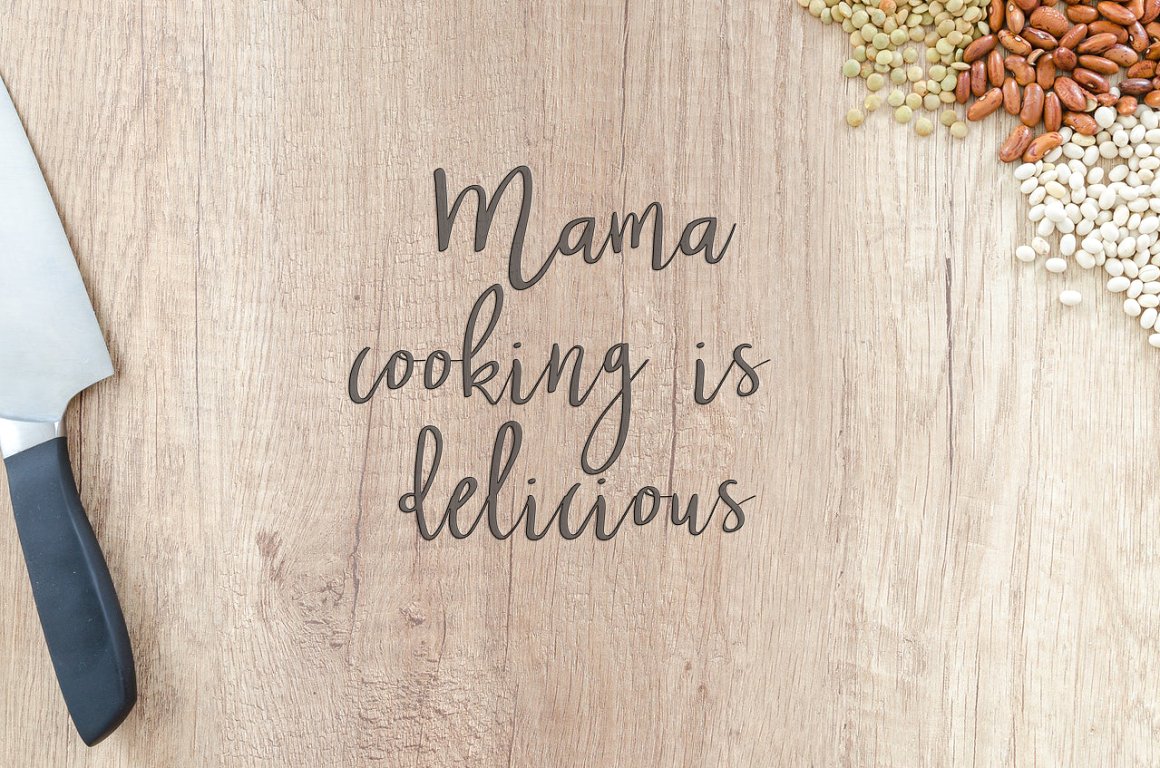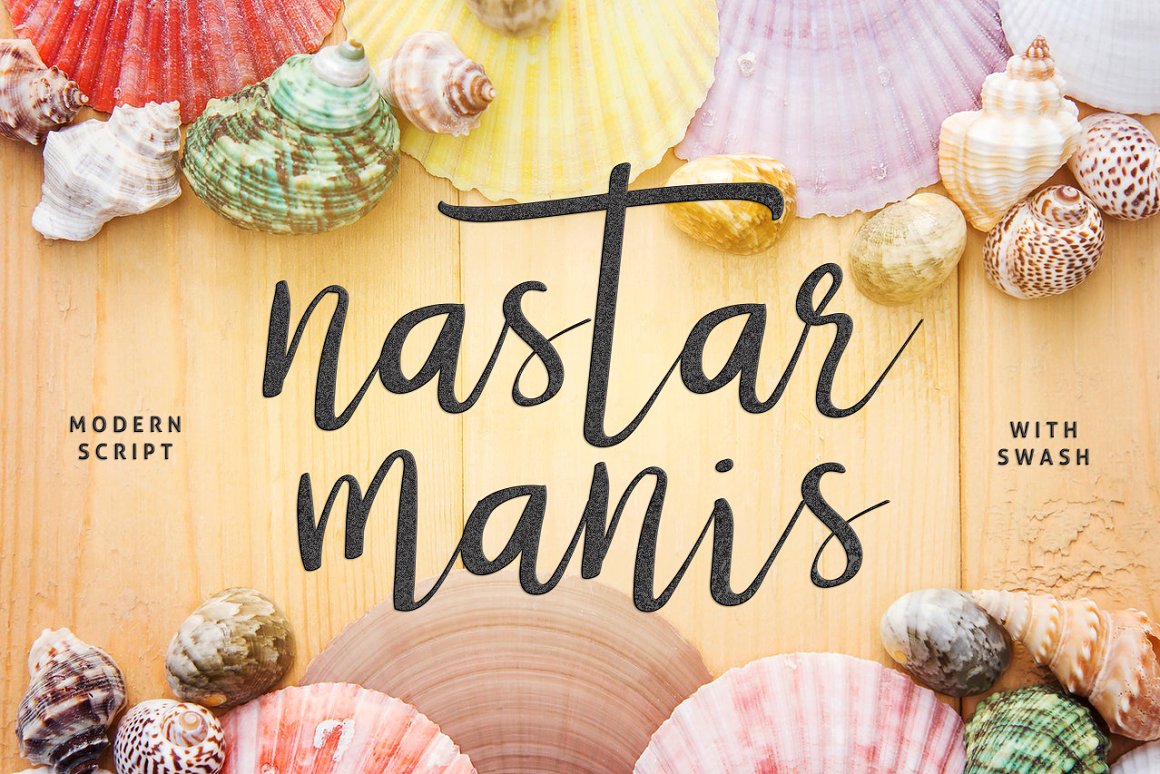
Nastar
Nastar Modern Script
Nastar Modern Script Font
Introducing Nastar Script + Swash – A Clean script and unique character! it’s perfect for logos, name card, magazine layouts, invitations, headers, or even large-scale artwork.